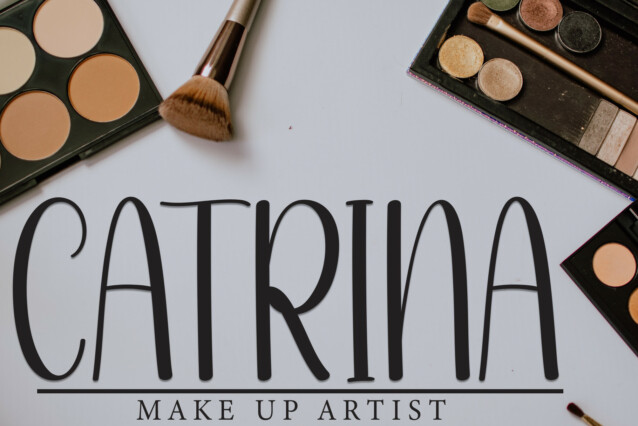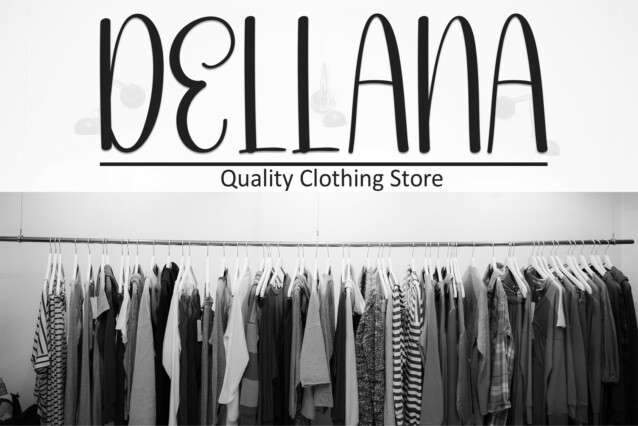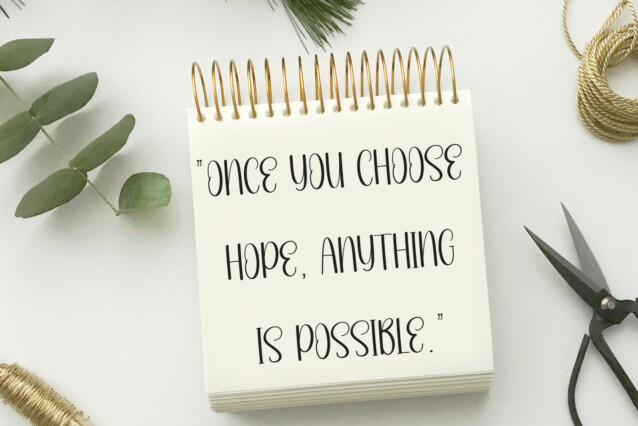
Grilled Chicken Display Font is a sweet and friendly handwritten display font. Cute and fun, this font is ideal for writing wedding invitations, cards, or any other design that might need a playful touch!